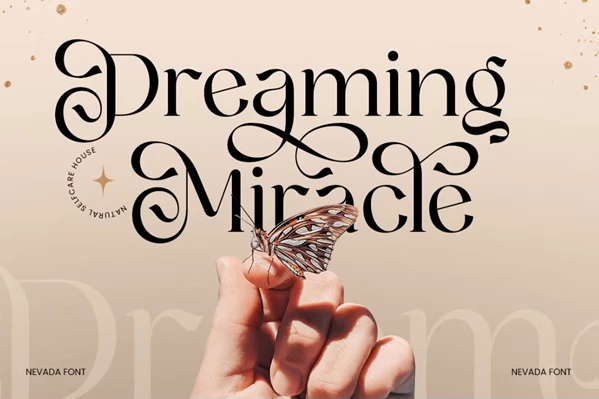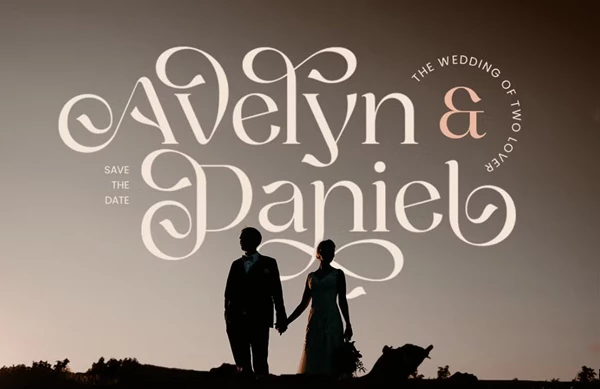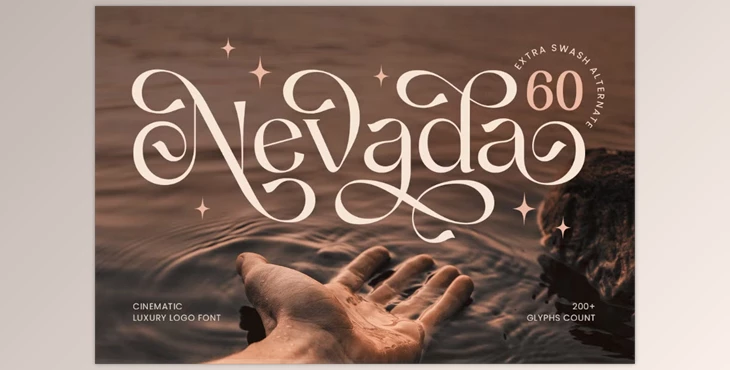
Nevada - Cinematic Branding Logo Font:
NEVADA is a luxury font designed to add elegance to your branding and logos. This cinematic luxury typeface is perfect for high-end logos, luxury branding, and lavish design projects. It combines sophisticated letterforms with a cinematic look to provide a timeless and elegant appearance that will keep your designs looking polished and high-end for years to come. Perfect for any digital or printed media, NEVADA will elevate your brand identity, luxury product collection, or upscale event.
Some great features of Nevada - Cinematic Branding Logo Font:
- Cinematic Luxury and Elegant Letterforms
- High-End Logos, Branding & More
- Uppercase, Lowercase, Numbers & Punctuation
- Thin & Polished Designs with Timeless Quality
- OpenType Features